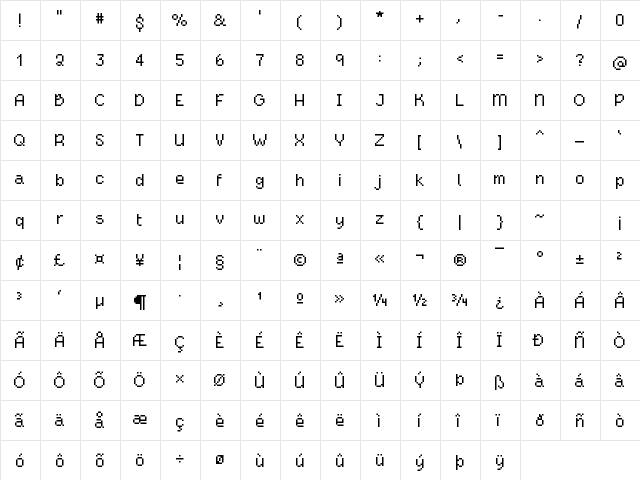
CyborgSister Medium
Design Context for CyborgSister Typeface
CyborgSister is a composed and adaptable typeface that performs quietly and consistently across a wide range of design contexts.
Pro Tip: Pair CyborgSister with a font of contrasting weight or personality to build a more expressive typographic hierarchy.